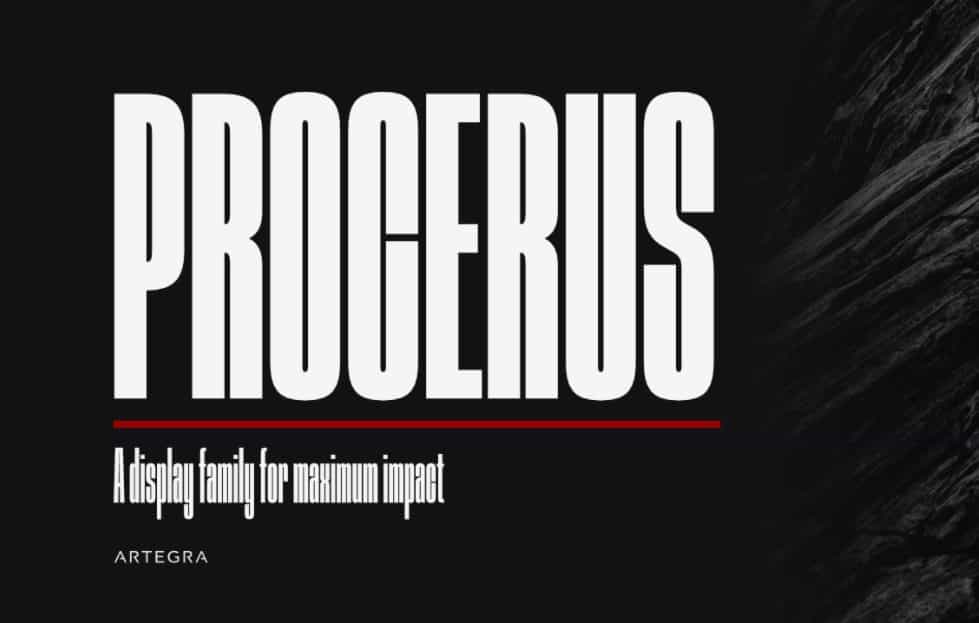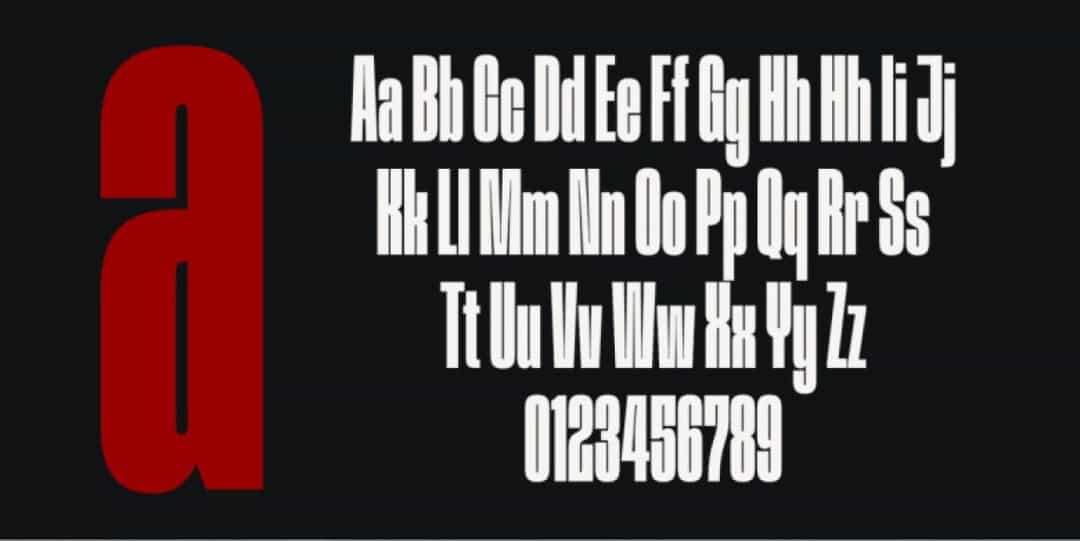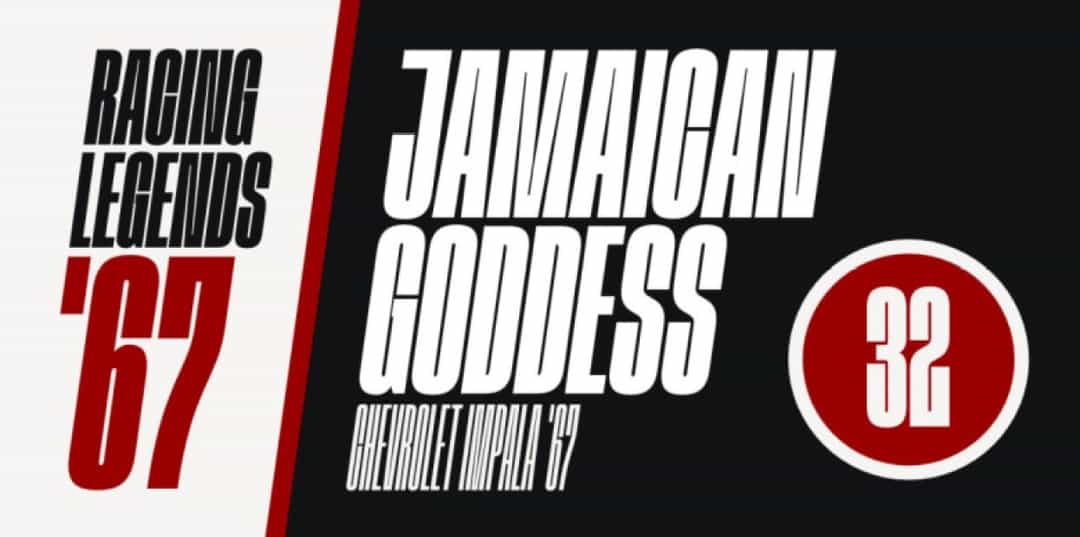
Procerus was designed to create maximum impact in a small space through ultra-compressed letterforms, using ultra-compressed letterforms. The main idea behind Procerus is exploring the beauty of well-integrated straight shapes which maximize space while leaving as little empty space as possible – creating a striking display which is attractive, captivating, and enjoyable to read.